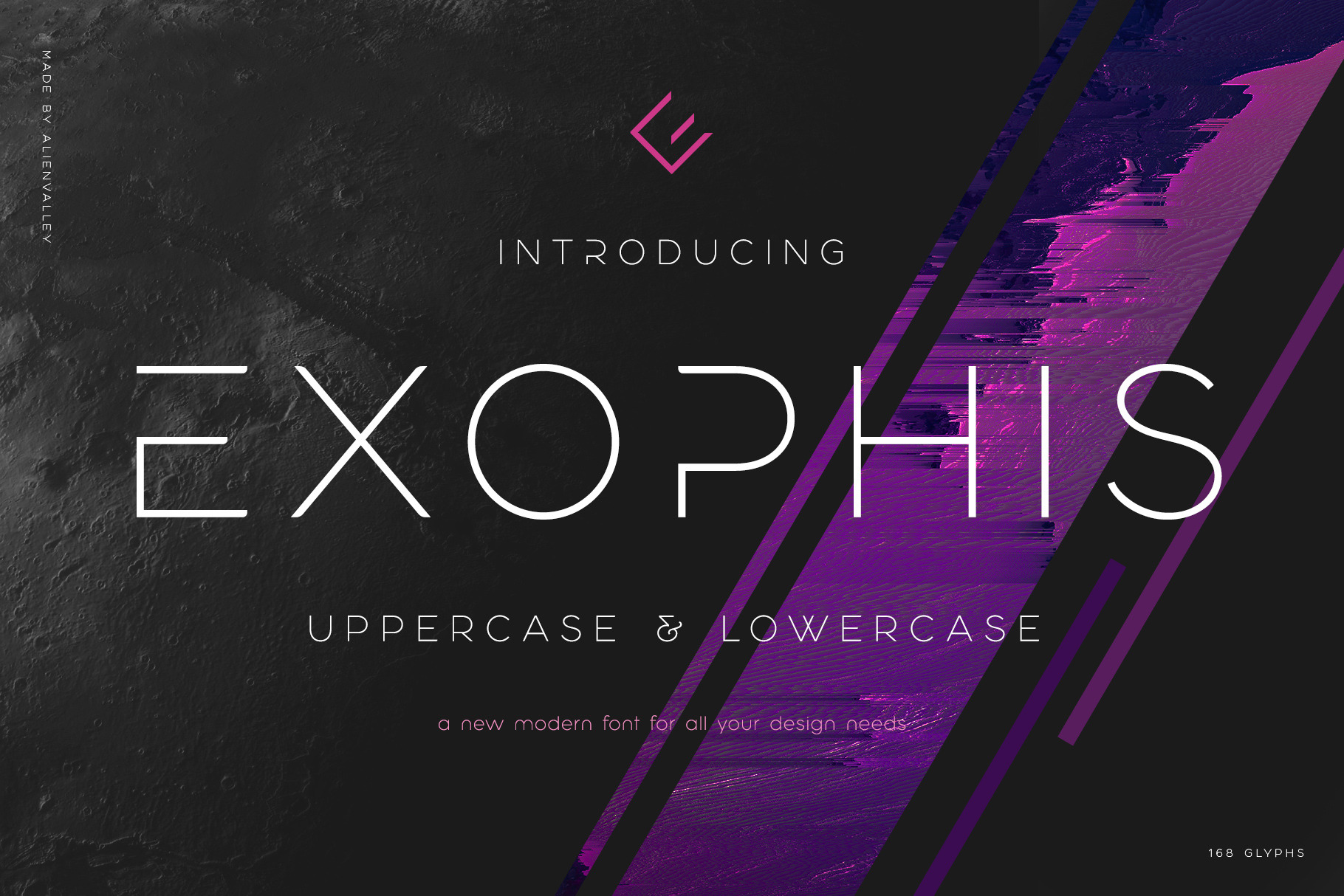
Exophis is a modern sans-serif typeface featuring both uppercase & lowercase letters, multilingual support and it includes 2 styles. Designed to look great for headlines and for large chunks of text as you can see in the preview images.